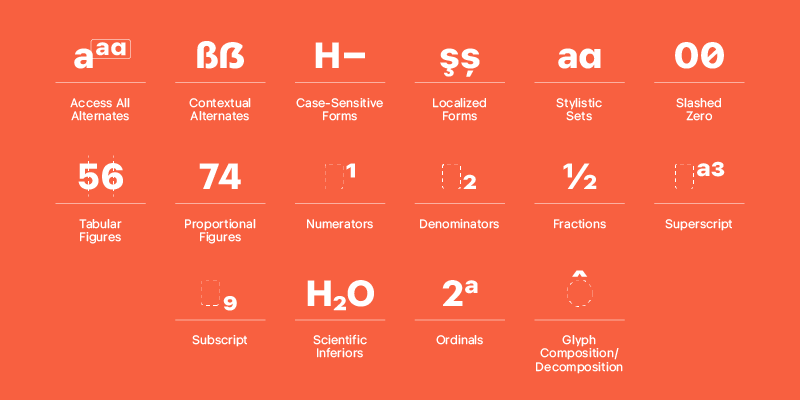
Font name: | Dortmund |
Author: | Punchform |
Purchase the full family here: https://www.myfonts.com/collections/dortmund-font-punchform Dortmund is a sans-serif type family designed to offer support for most Latin script languages. Dortmund has nine weights, each with corresponding italics, 710 glyphs, and 17 OpenType features (aalt, calt, case, ccmp, dnom, frac, locl, numr, ordn, pnum, sinf, ss01, ss02, subs, sups, tnum, zero). Dortmund supports 377 languages and covers 3 Unicode blocks (Basic Latin, Latin-1 Supplement, Latin Extended-A). |